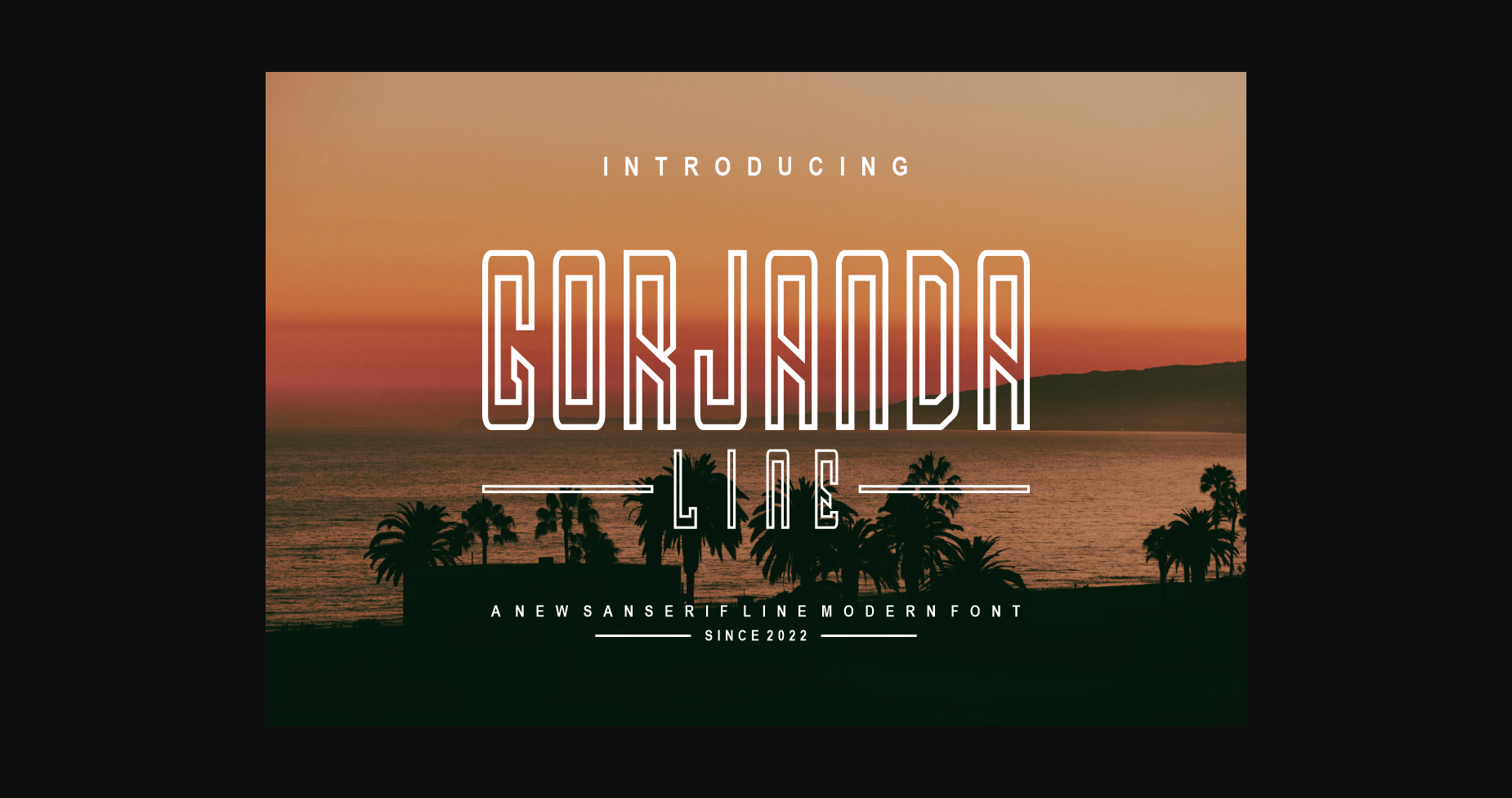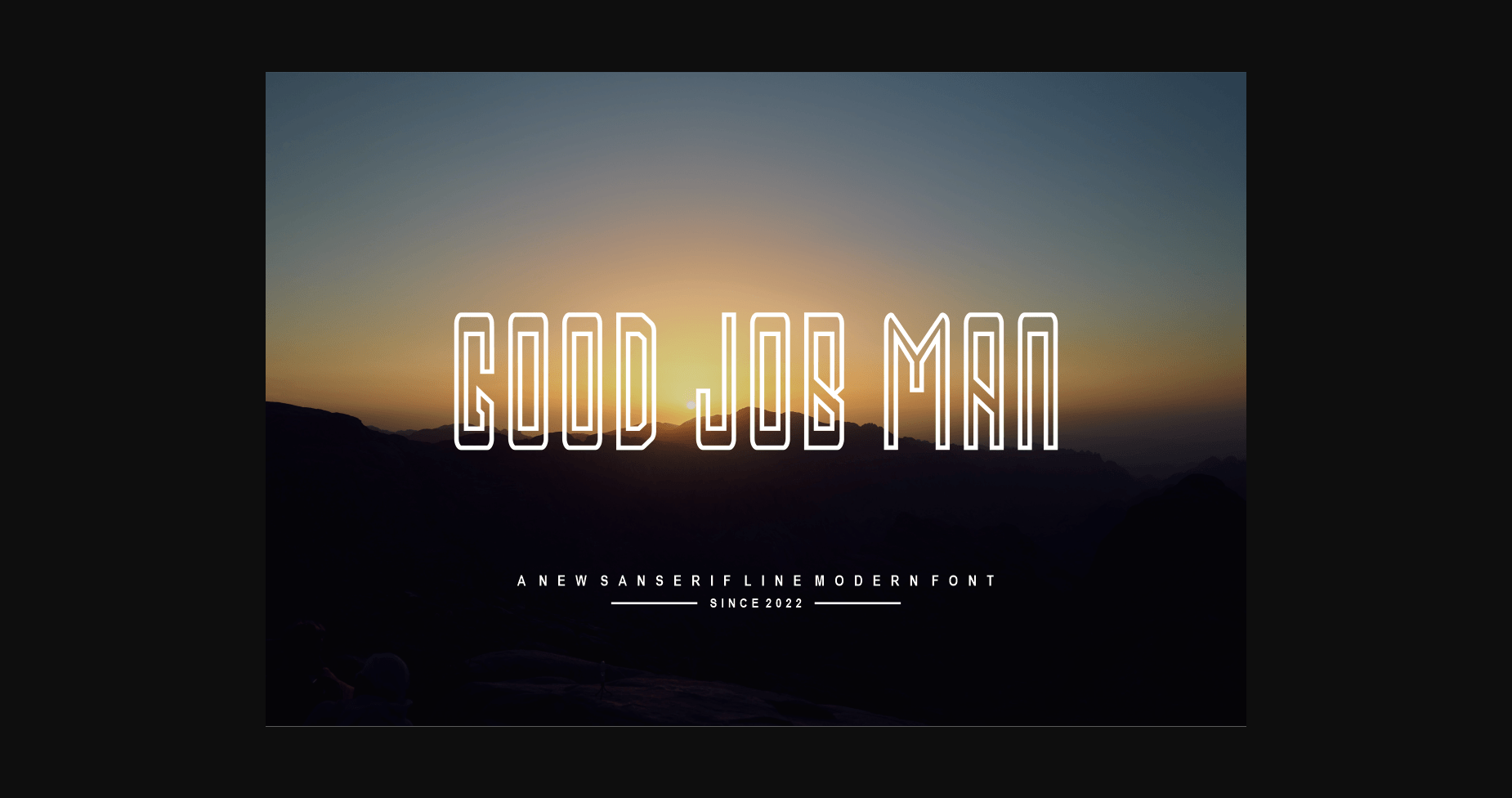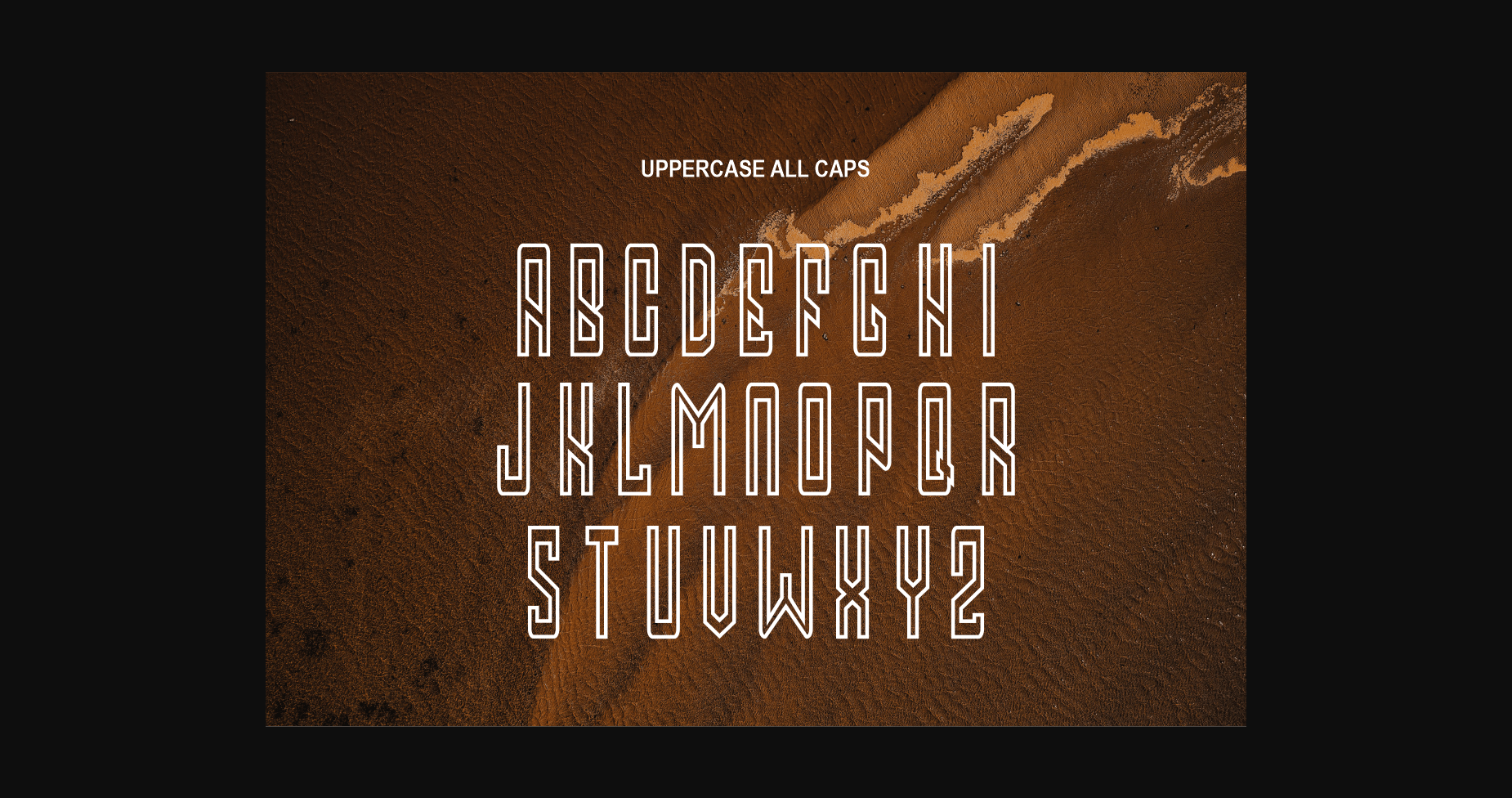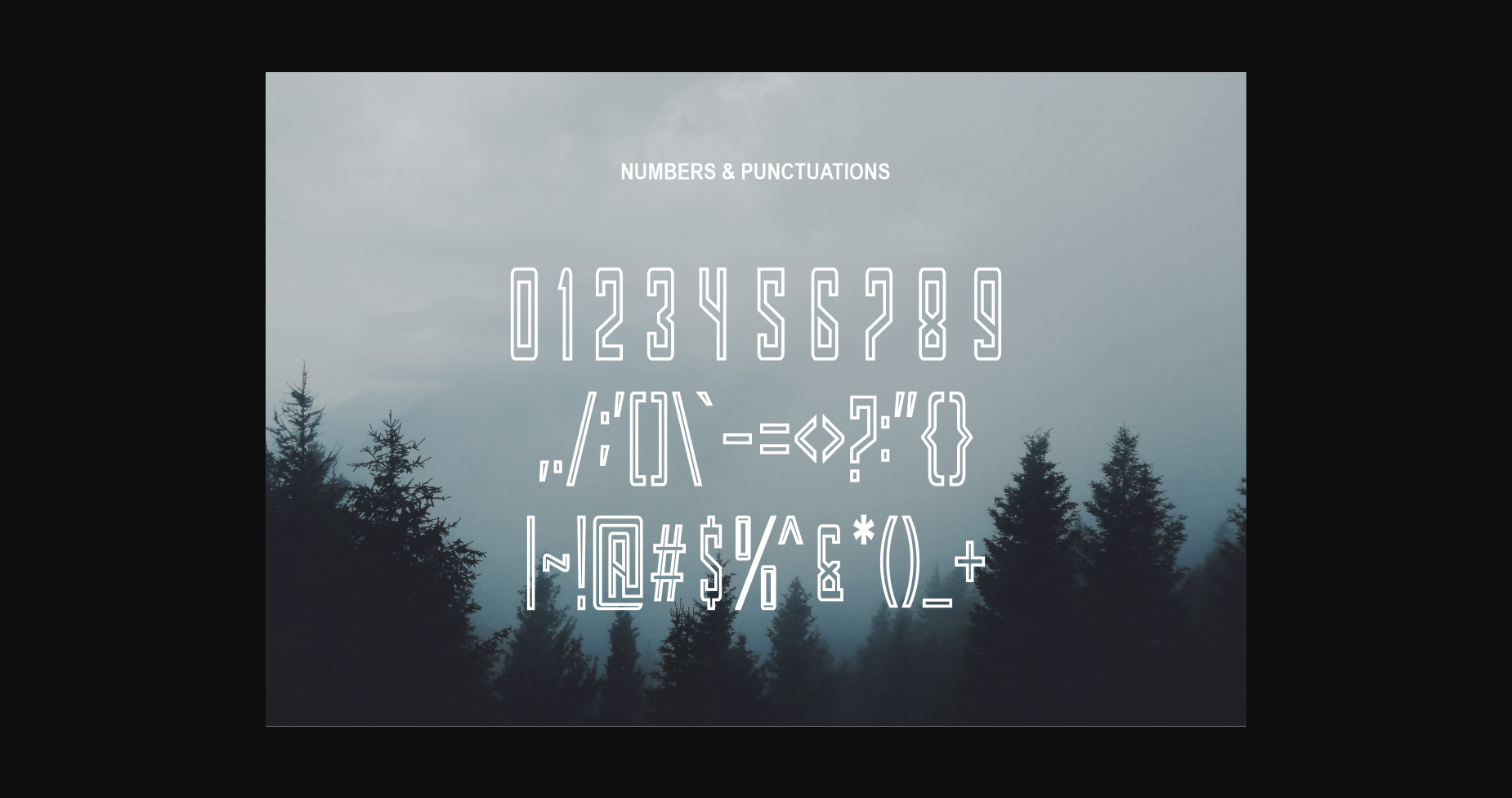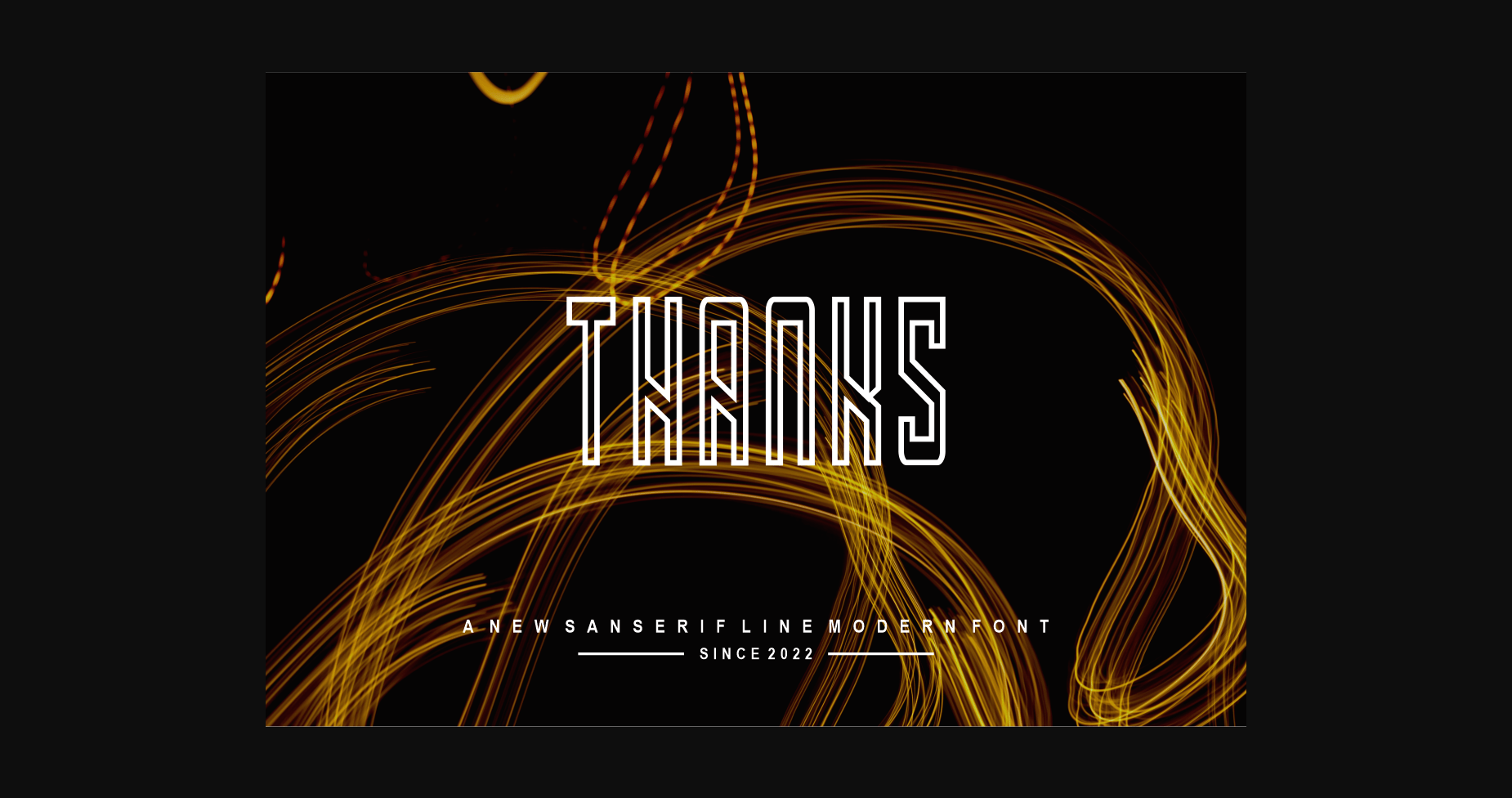
Gorjandaline is a sweet and elegant sans serif font perfect for logos, branding, quotes, clothing, tote bags, business cards, websites, and many more. Fall in love with it, and let it take your projects to the highest level!